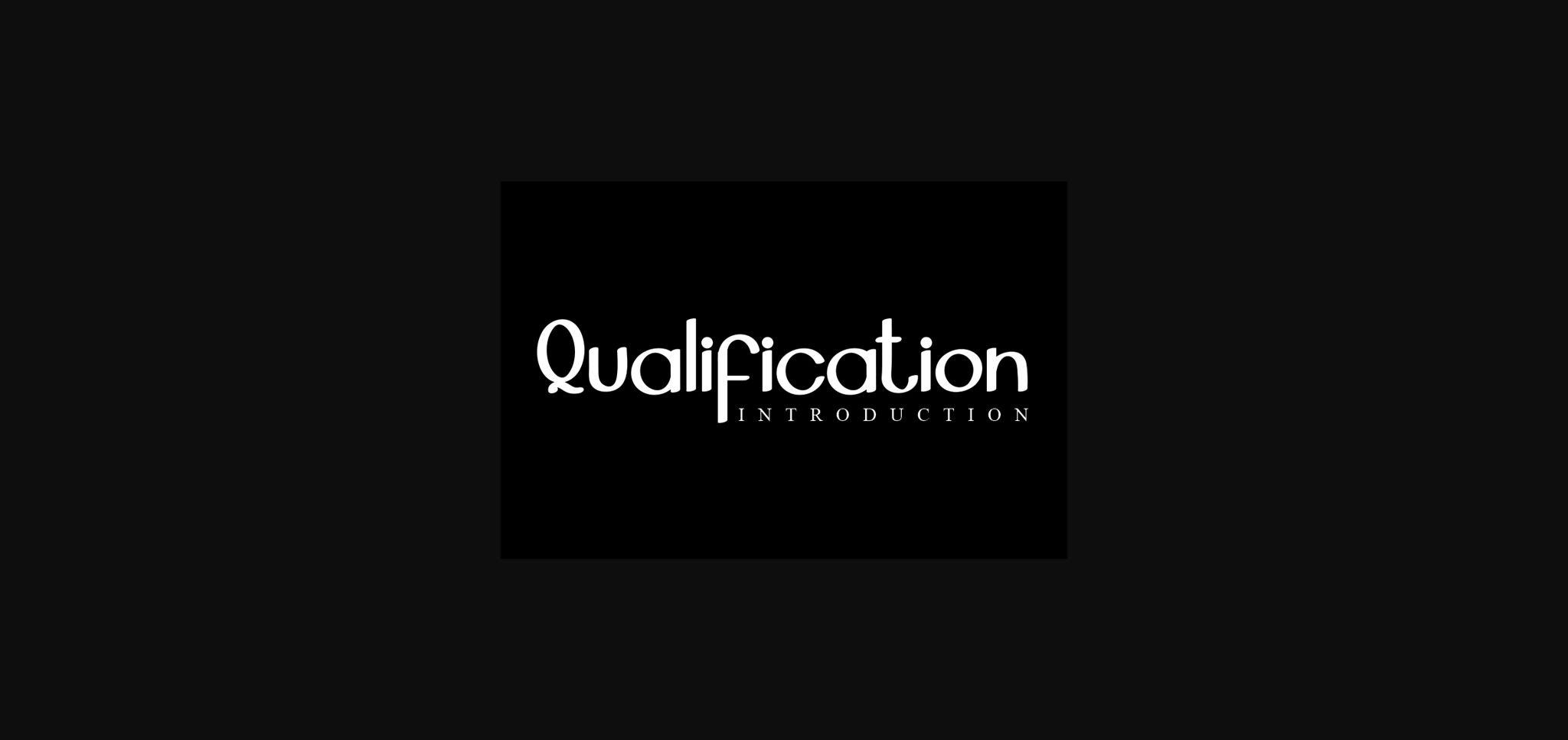
Qualification Font
About Qualification Font
Qualification is a minimal and neat sans serif font. It can easily be matched to an incredibly large set of projects, so add it to your creative ideas and notice how it makes them stand out!